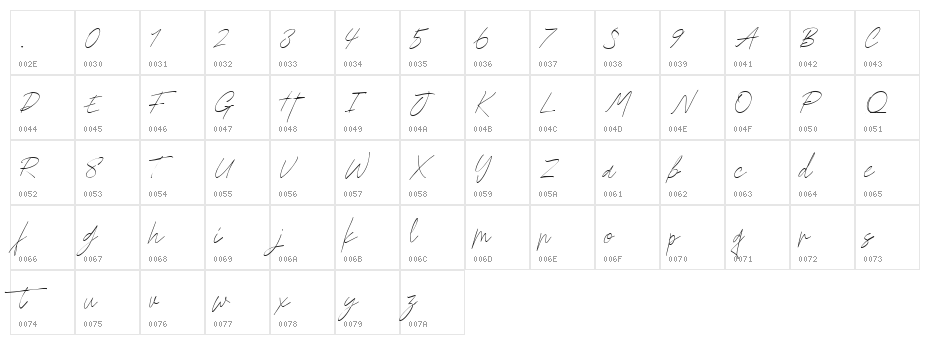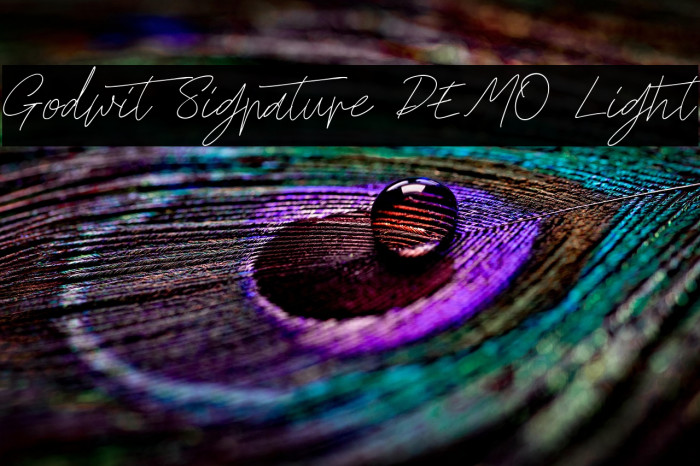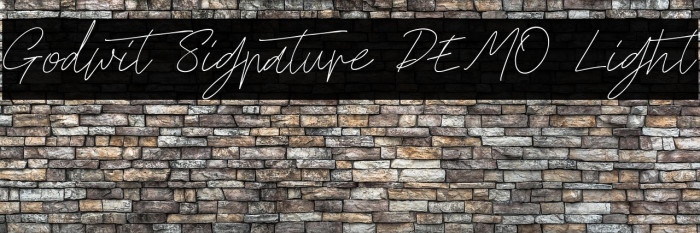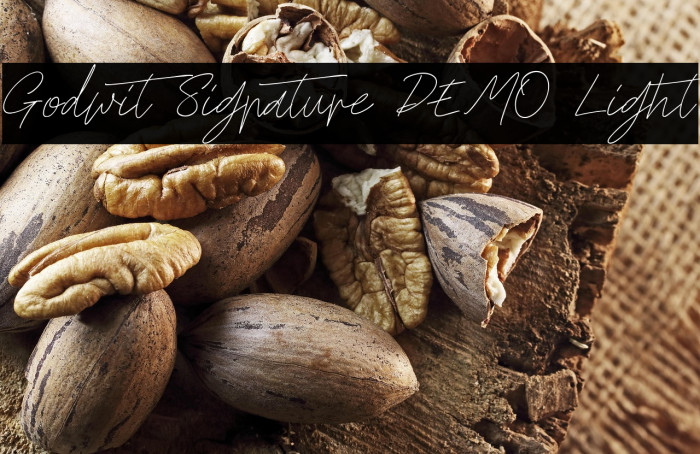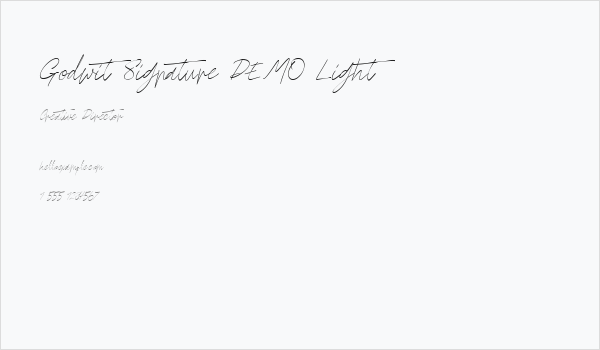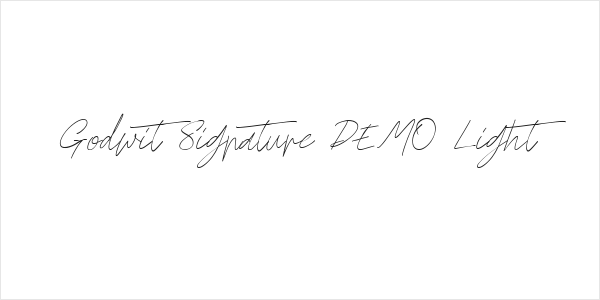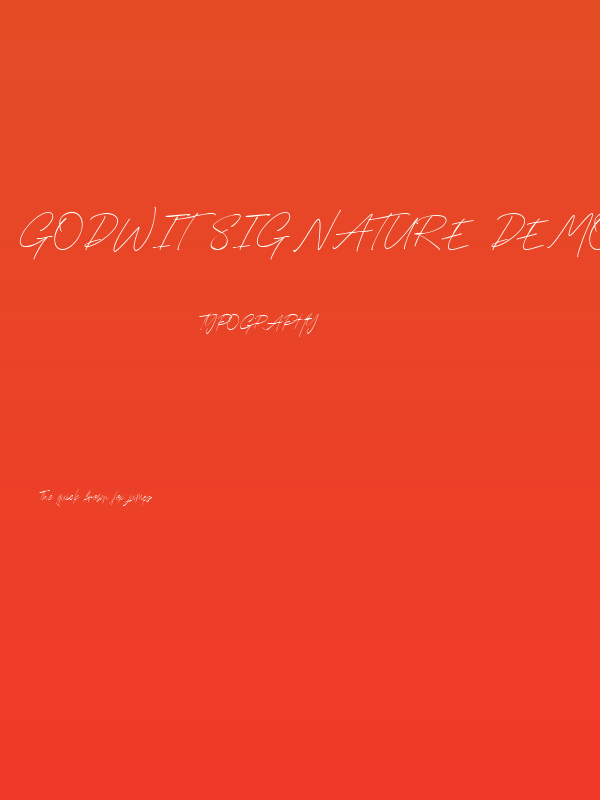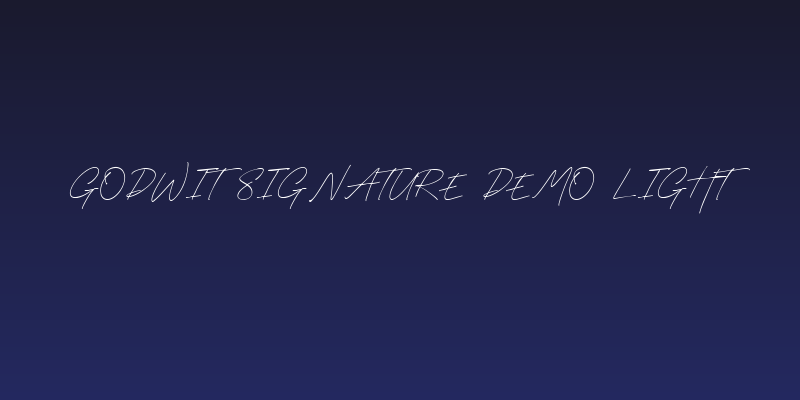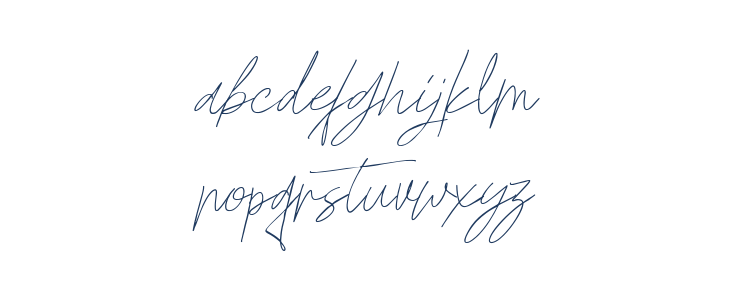
Godwit Signature DEMO Light Font
Godwit Signature DEMO Light Description
This font embodies a sophisticated and elegant handwritten style, characterized by its fluid and continuous strokes that mimic natural handwriting. The letters are gracefully connected, providing a seamless flow that enhances its cursive nature. The thin lines and delicate curves give it a light and airy feel, making it perfect for adding a personal touch to any design. The font maintains a consistent slant, adding to its dynamic appearance, while the spacing between characters is balanced to ensure readability. Its overall aesthetic is both modern and timeless, suitable for a variety of creative applications.
| Use Case | Logos, Invitations, Personal branding |
| Proposed Projects | Ideal for wedding invitations, personal branding, greeting cards, and elegant stationery. |